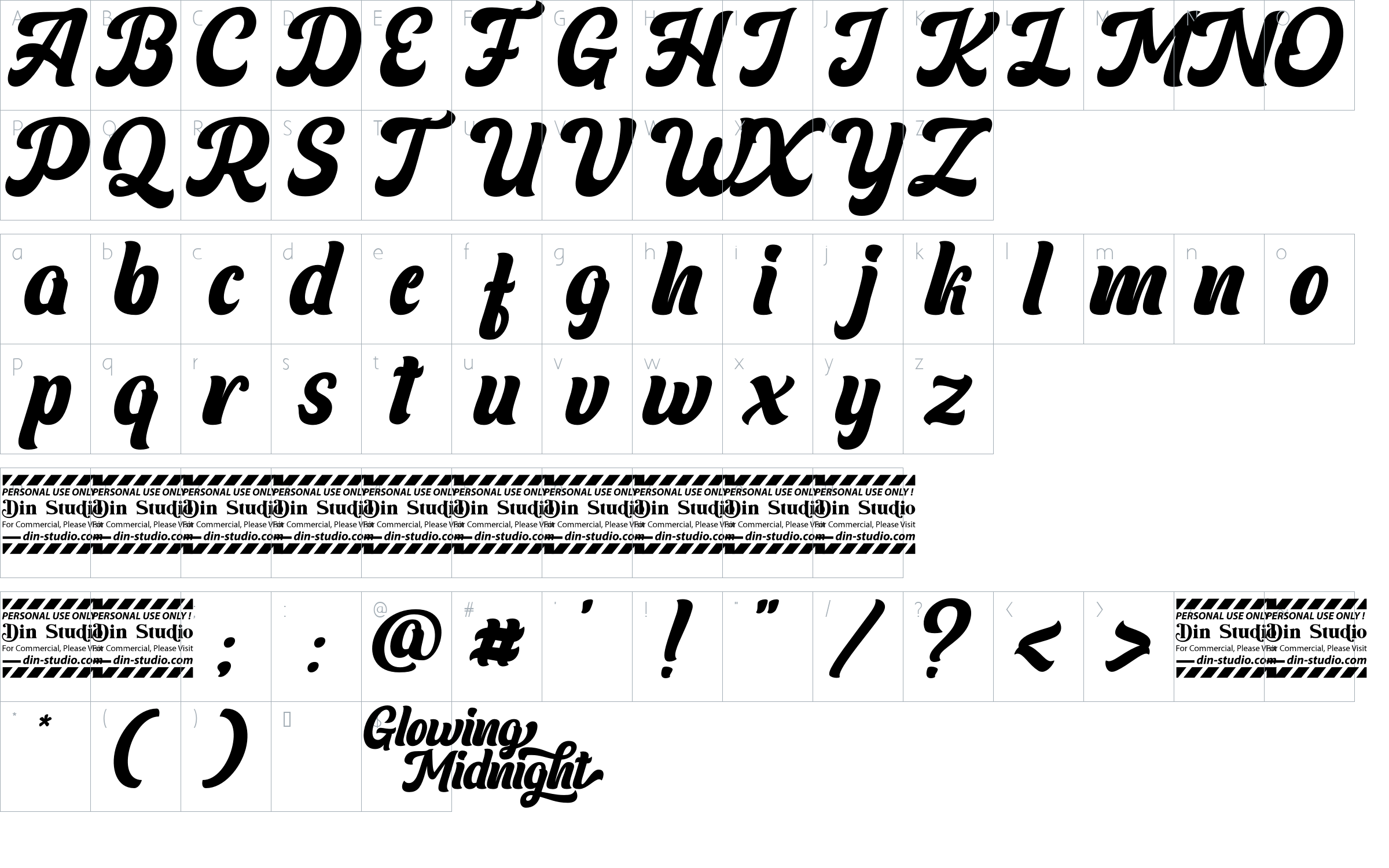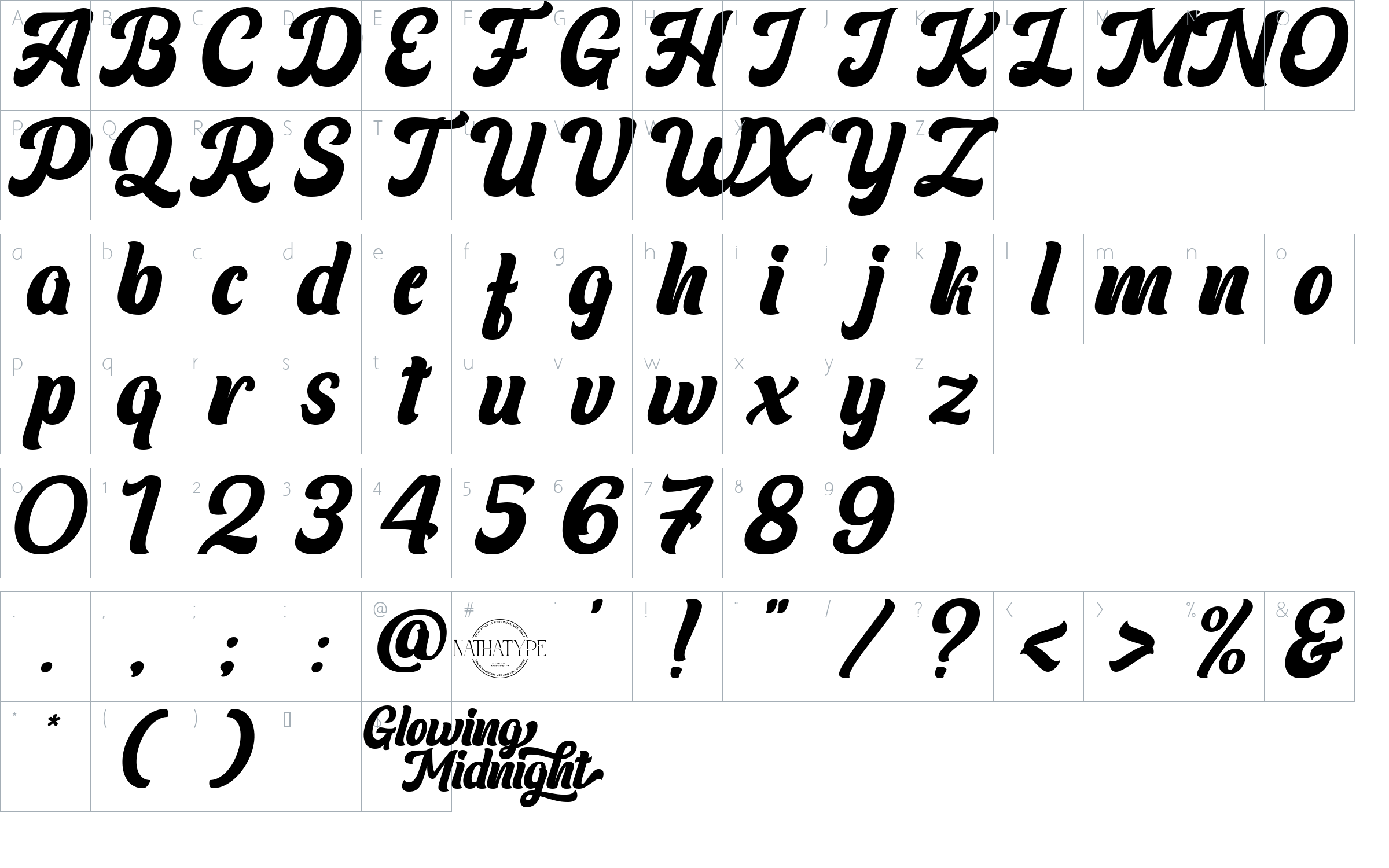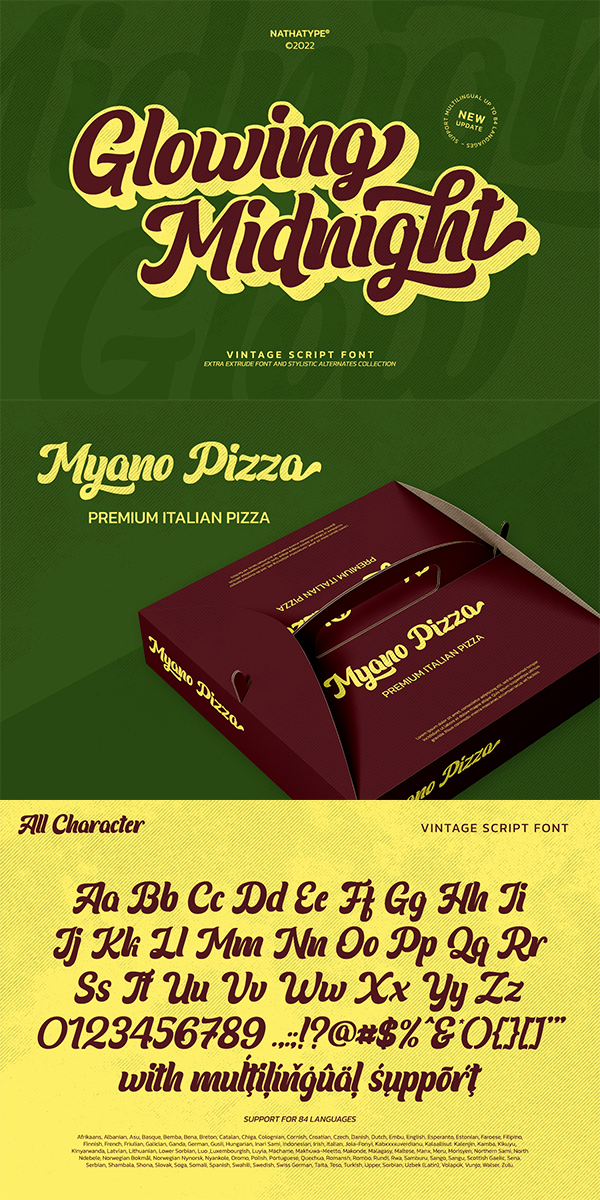
Glowing Midnight Font
About Glowing Midnight
Glowing Midnight-A Script Font
Glowing Midnight is a unique script font with retro touch. This font features thick and angular letters that easy on the eyes and nice to look while it’s also easy to read. Glowing Midnight becomes more special with extruding version option. Well suited to titles, poster designs, branding, logos, and many more.
Ligatures